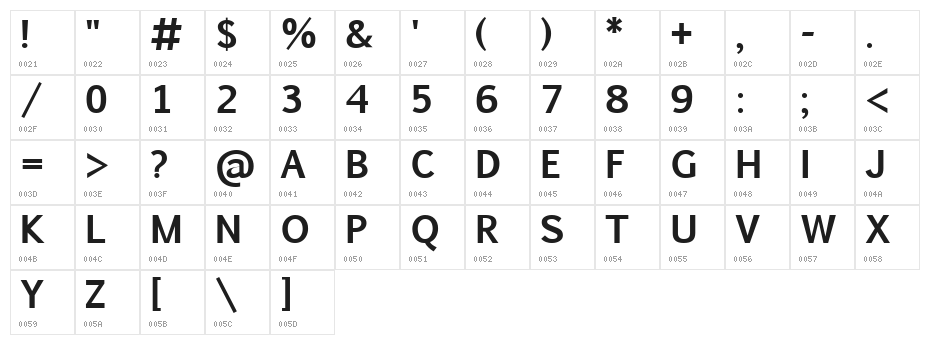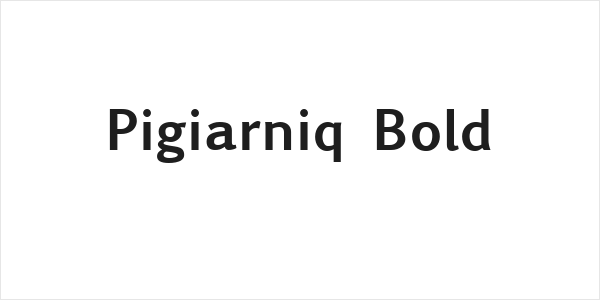
Pigiarniq Bold Font
Pigiarniq Bold Description
This font is a bold and modern sans-serif typeface characterized by its clean lines and strong presence. The uppercase and lowercase letters maintain a consistent weight, providing a uniform appearance that enhances readability. The numerals are clear and distinct, making them suitable for various applications. Special characters are well-defined, adding versatility to the font's usage. The overall design is straightforward yet impactful, making it ideal for projects that require a contemporary and professional look.
| Use Case | Headlines, Logos, Digital content |
| Proposed Projects | Ideal for branding, advertising, headlines, and digital content where a modern and professional appearance is desired. |